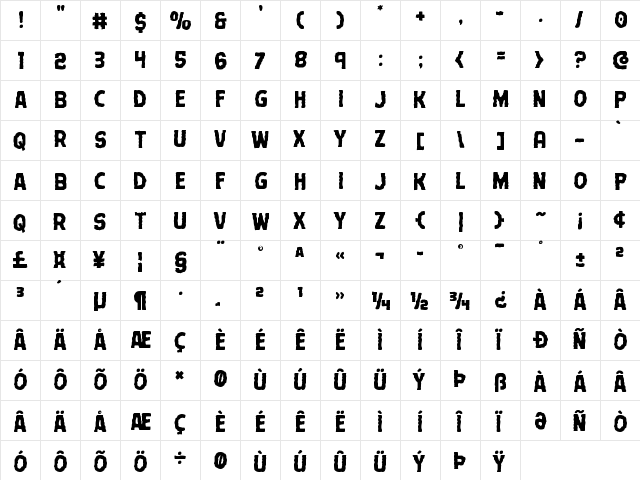
Terror Babble Staggered Regular
Design Context for Terror Babble Staggered Typeface
Terror Babble Staggered is a composed and adaptable typeface that performs quietly and consistently across a wide range of design contexts.